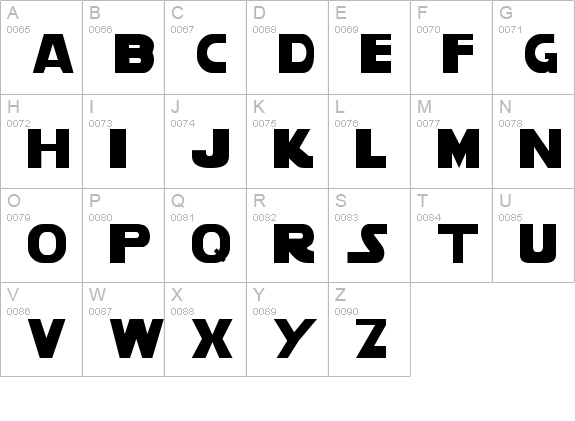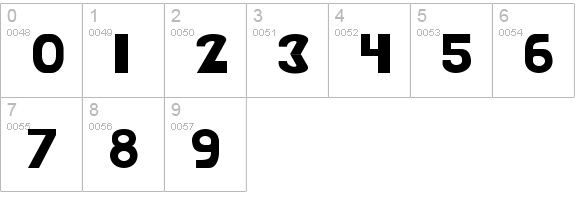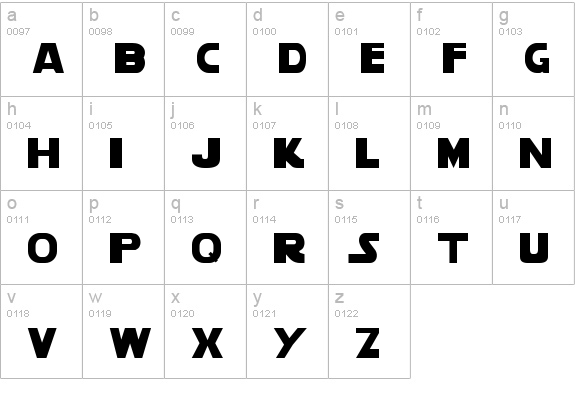
Star Vader Font Details
Introducing Star Vader, a captivating and futuristic font that will transport your designs to a whole new galaxy. With its sleek and edgy appearance, Star Vader is perfect for projects that require a touch of sci-fi elegance. This impressive typeface boasts a unique combination of sharp angles and smooth curves, creating an otherworldly aesthetic that is both bold and captivating. Whether you're designing a logo, poster, or even a website, Star Vader will instantly add a sense of modernity and sophistication to your work. But what makes Star Vader even more remarkable is that it is absolutely free! Yes, you read that right. This incredible font is freely available to download at FontsMarket.com, allowing you to explore its endless possibilities without breaking the bank. Star Vader's versatility knows no bounds. Its clean and clear letterforms make it easily legible in both small and large sizes, while its wide range of weights and styles provide endless creative opportunities. From headlines that demand attention to body text that guides the reader, Star Vader effortlessly adapts to any design challenge. So, if you're ready to embark on a design journey that is out of this world, look no further than Star Vader. Download this stunning font for free at FontsMarket.com and let your imagination take flight. Unleash the power of the stars and make your designs shine brighter than ever before with Star Vader.